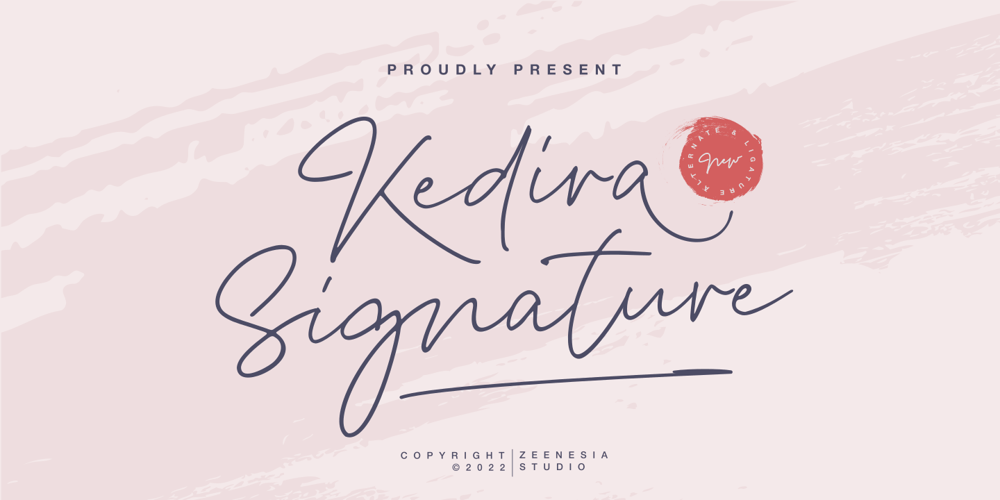
Kedira Signature Font Family was designed by Doni Purwoko and published by Zeenesia Studio. Kedira Signature contains 1 styles and family package options. edira Signature is a monoline script font with handwritten signature Style. Kedira Signature font was created with original handwritting pen. This collection of scripts is perfect for personal branding. this works well for many applications.Kedira Signature would perfect for photography, watermark, social media posts, advertisements, logos & branding, invitation, product designs, label, stationery, wedding designs, product packaging, special events, fashion, website or anything that need handwriting taste.